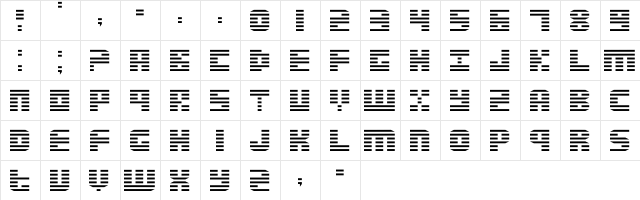
Enduro Regular
Design Context for Enduro Typeface
Enduro is a composed and adaptable typeface that performs quietly and consistently across a wide range of design contexts.